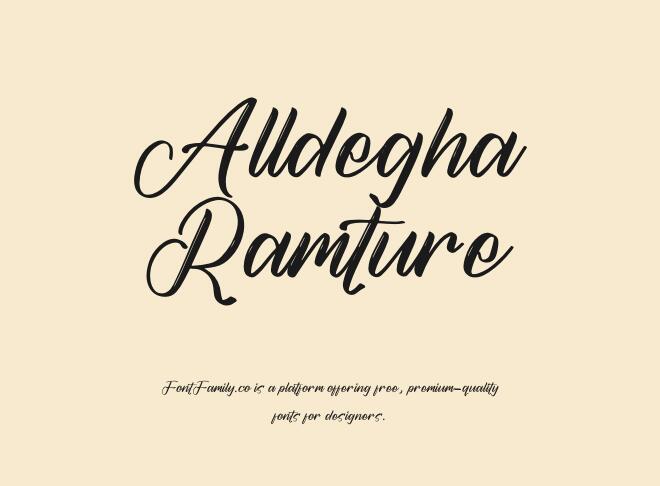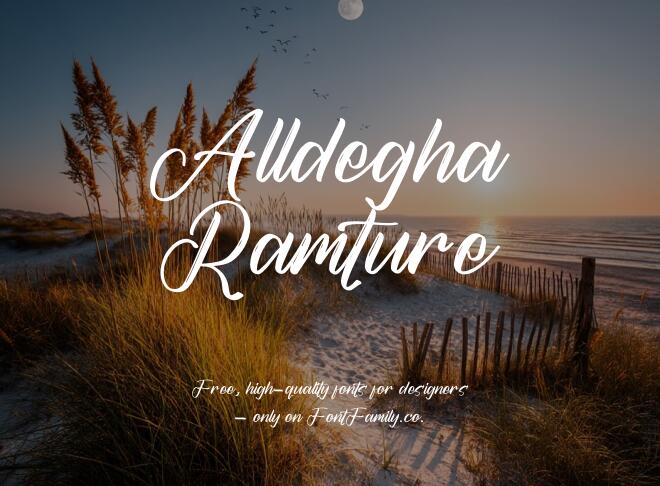
Alldegha Ramture Font
Alldegha Ramture Font is a unique script typeface with playful and rustic aesthetics. The font, with its handwritten style, adds a personal touch to any design project, making it ideal for branding, wedding invitations, and greeting cards. With its decorative embellishments, it brings a creative twist to traditional script fonts. Compared to other fonts, Alldegha Ramture stands out due to its unique character shapes and balanced letterforms. This font is a great choice for those looking to add an artistic and personal touch to their work. Its versatility allows it to blend seamlessly into a wide range of design contexts. Alldegha Ramture Font, with its playful charm and rustic appeal, is set to become a favorite among designers and typographers alike.